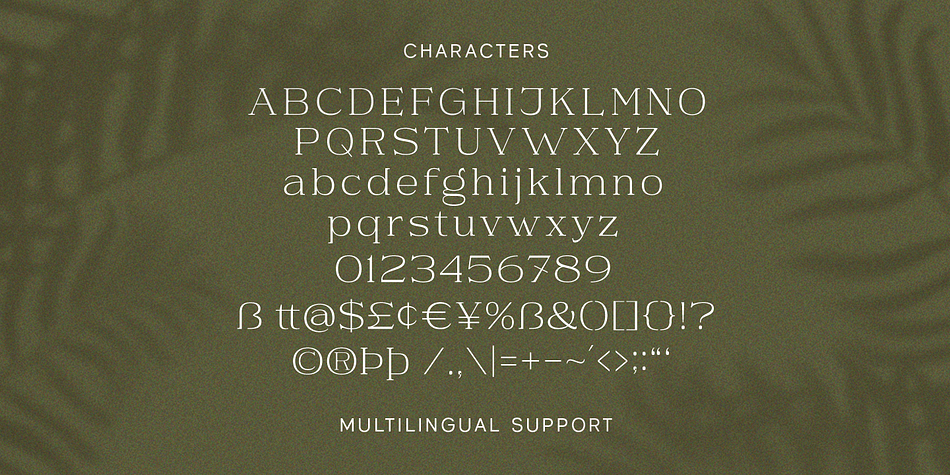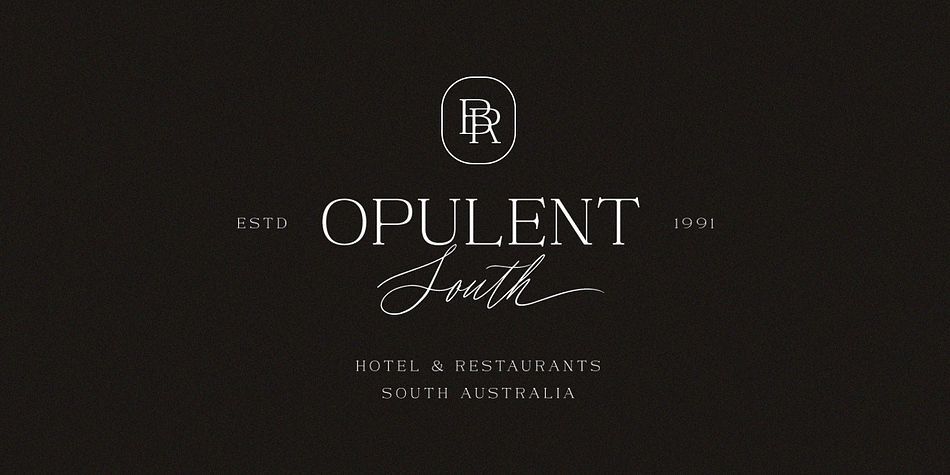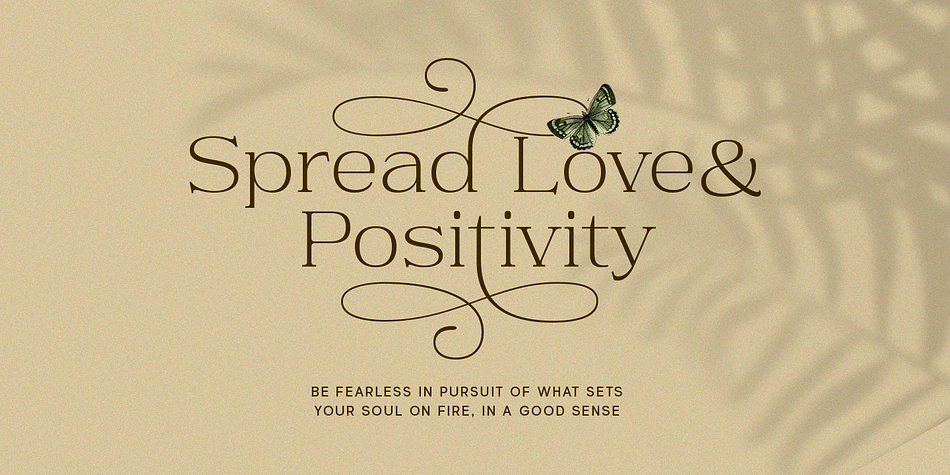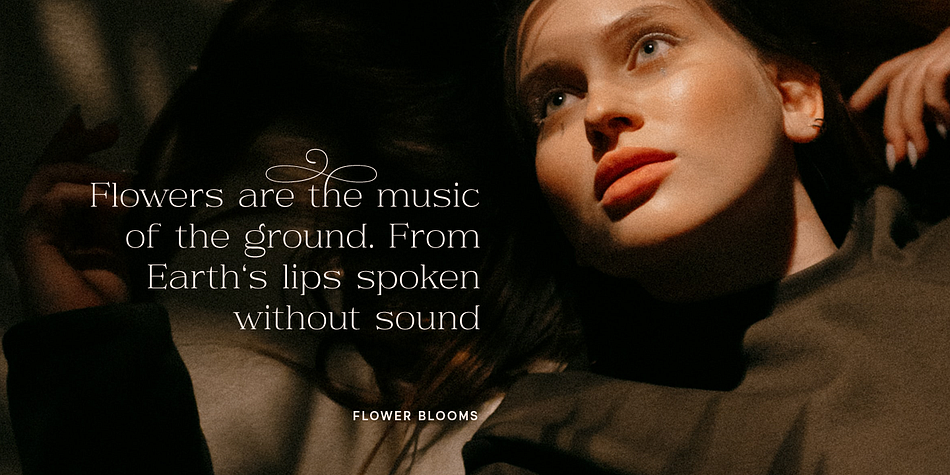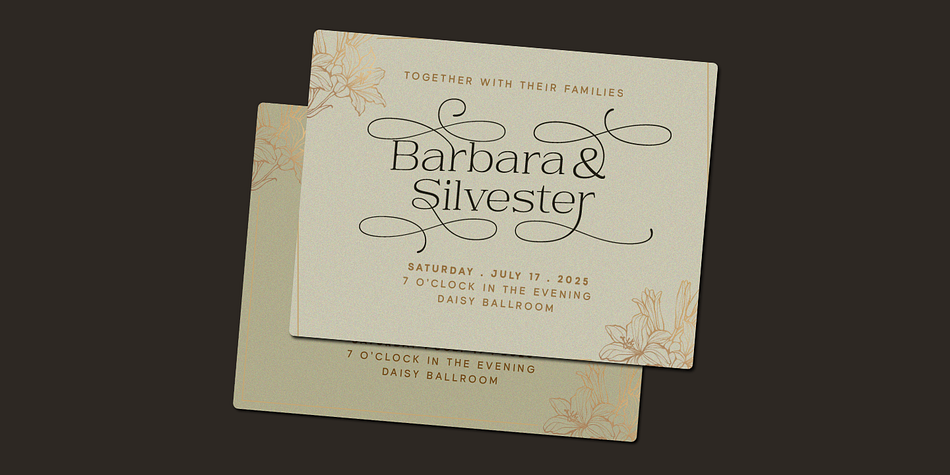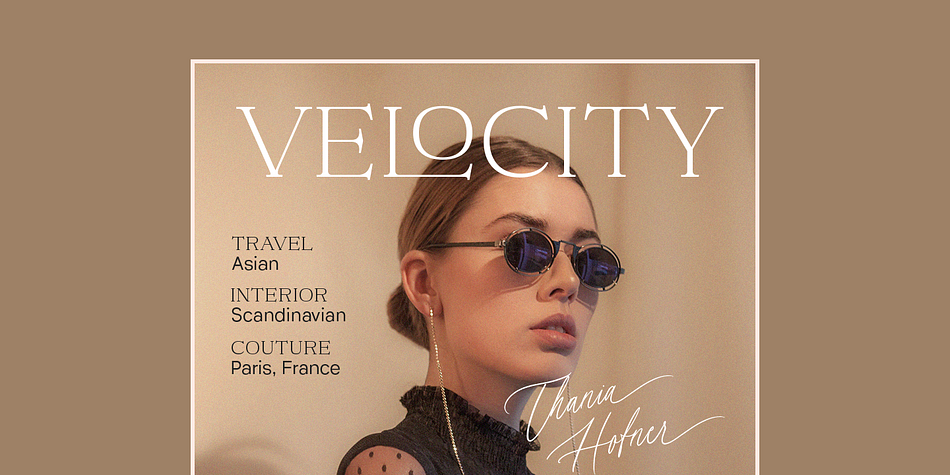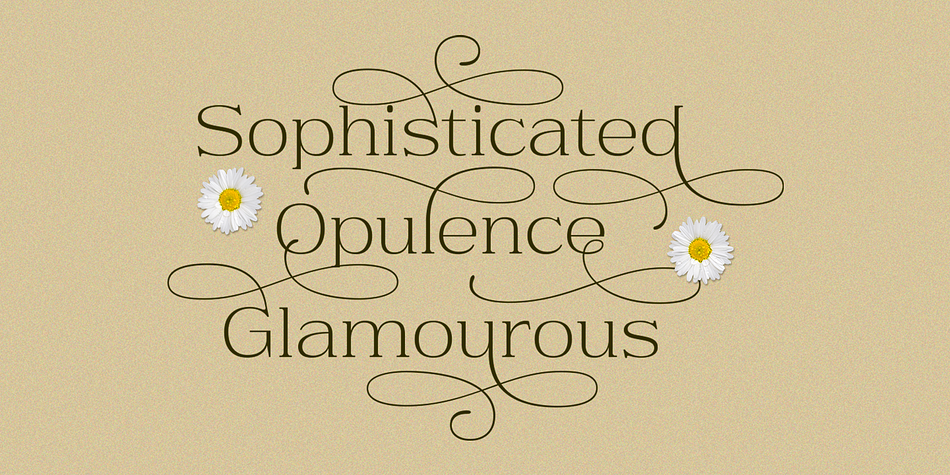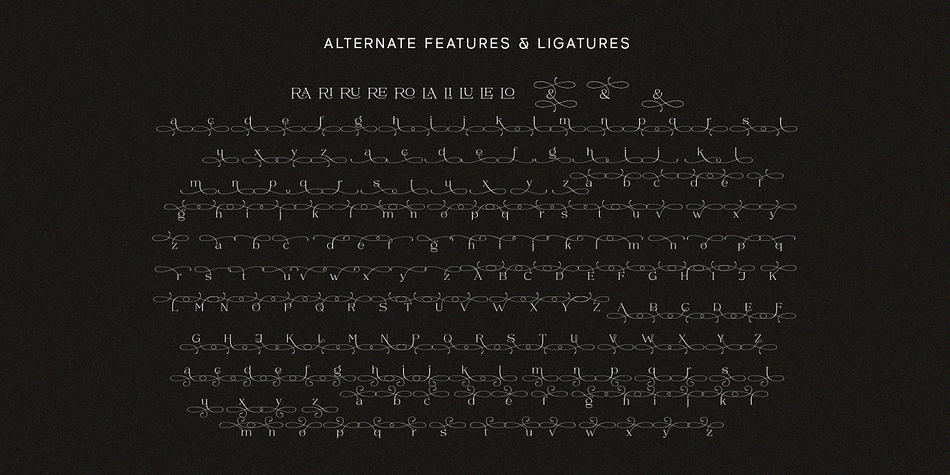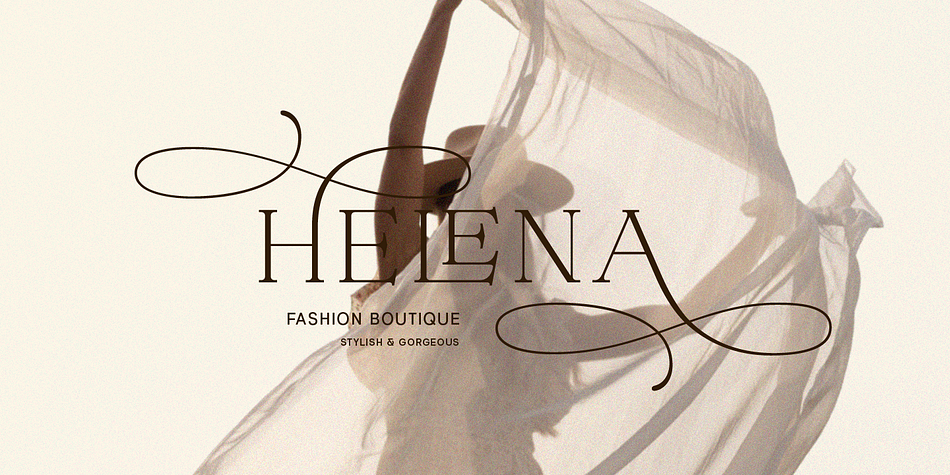
Daisy & Violette
Designed by Hendry Juanda, Daisy & Violette is a display serif font family published by Letterhend Studio.
Look the allure of Daisy & Violette, a mesmerizing serif font that blends modernity with classic refinement. With its thin serifs and captivating alternates adorned with graceful flourishes, this font is a true testament to elegance. Whether used for high-end packaging, editorial layouts, or upscale event invitations, Daisy & Violette brings an air of sophistication that will leave a lasting impression.
- Alternates & Ligatures